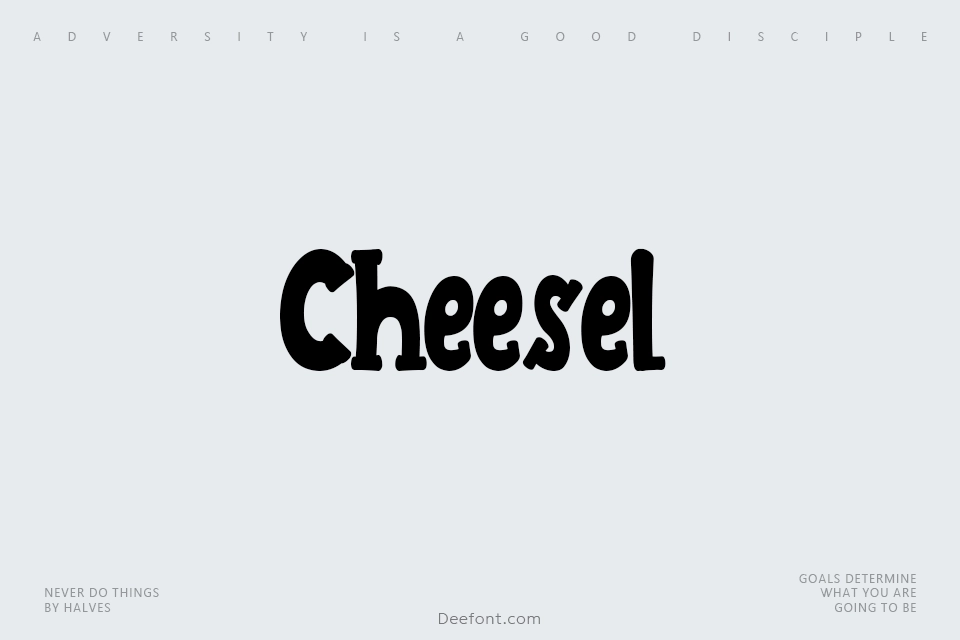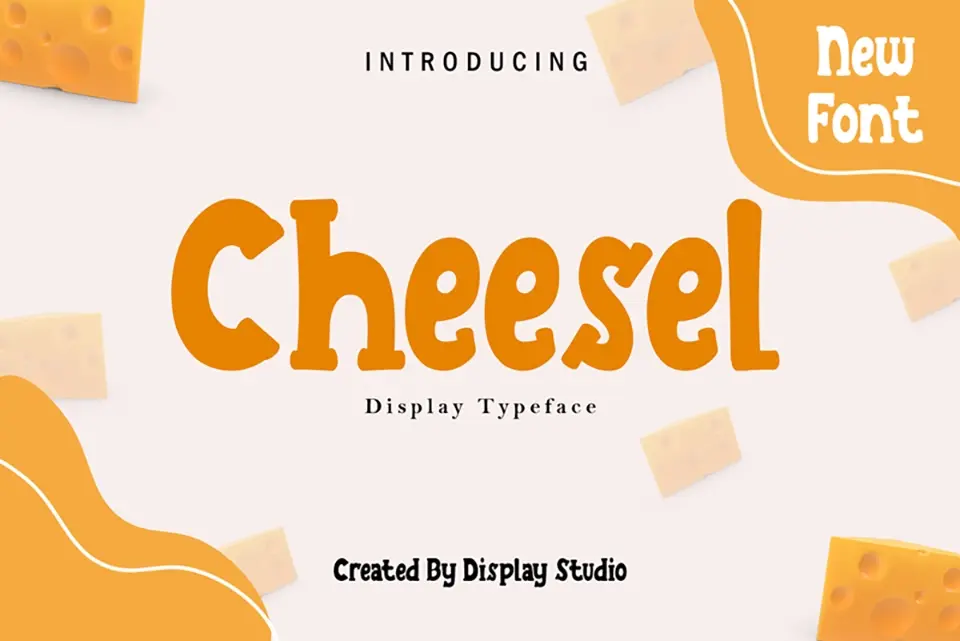
Cheesel Font
Cheesel is a bold and playful display typeface created by Display Studio that combines modern sophistication with fun, cartoonish character. With its clean lines and whimsical curves, this versatile font is perfect for logos, invitations, greeting cards, posters, and creative projects. Supporting 41 languages and available in multiple style variations, Cheesel delivers a unique and captivating visual impact for both personal and professional designs. Its dynamic blend of strength and playfulness makes it an excellent choice for eye-catching branding and contemporary typography.